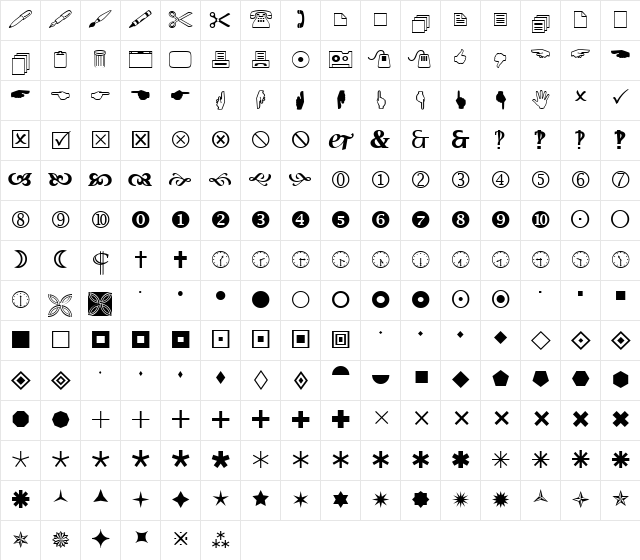
Wingdings 2 Regular Free Font
Wingdings 2 Regular
Design Context for Wingdings 2
Wingdings 2 is a composed and adaptable typeface that performs quietly and consistently across a wide range of design contexts.